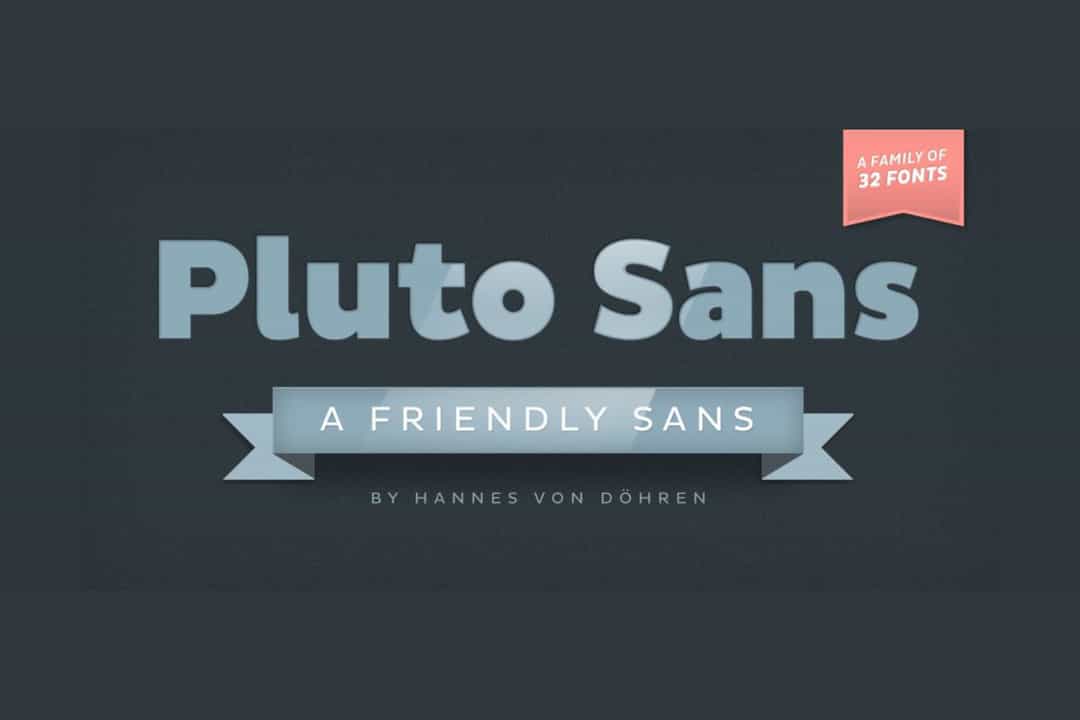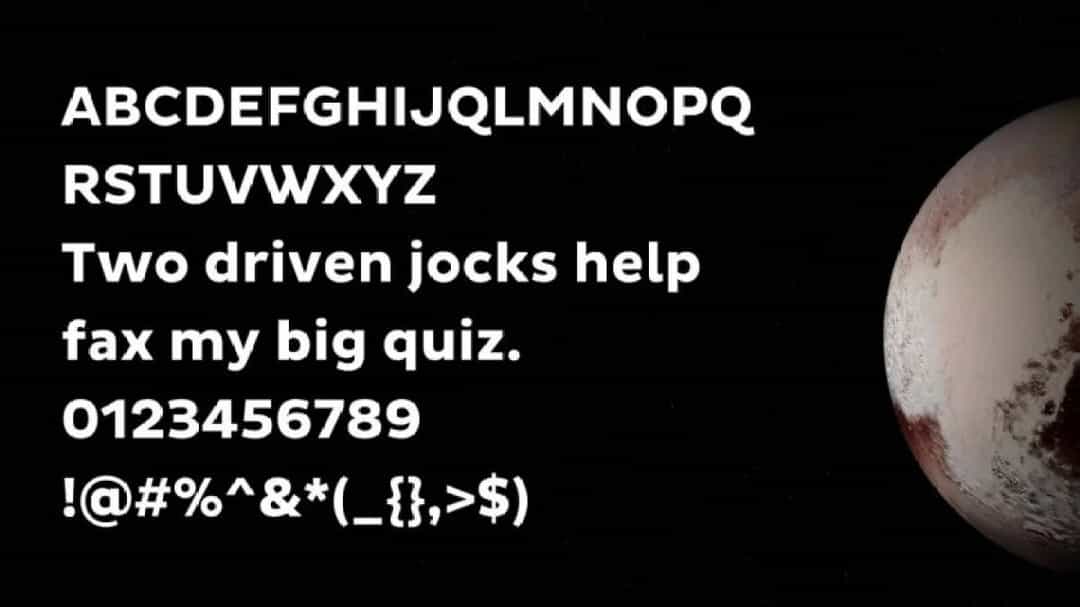
Pluto Sans Font is a multi-weight humanist sans-serif font family consisting of 16 Italics and 16 Uprights across 32 fonts, inspired by Pluto design. With geometric forms and large x-height it provides comforting vibe. Perfect for use both print and screen based environments. These fonts also share similar styles and weights making for an excellent combination.